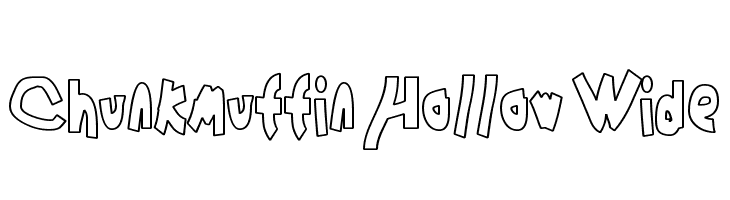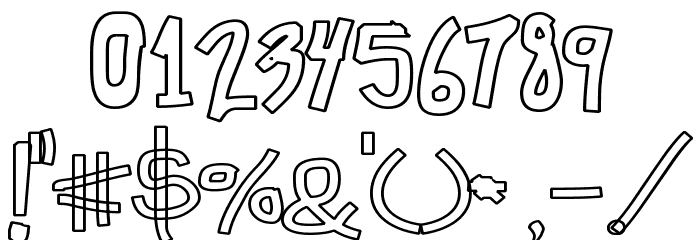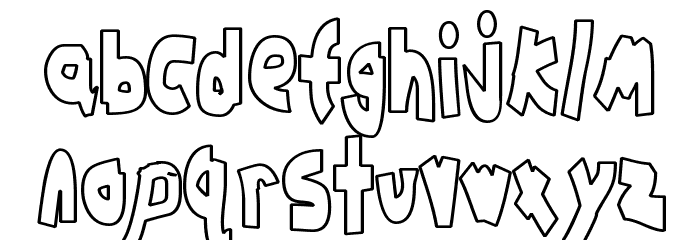
Chunkmuffin Hollow Wide Font
Chunkmuffin Hollow Wide Description
This font features a playful and dynamic style with hollow, wide characters that give it a unique and eye-catching appearance. The letters are bold and slightly irregular, adding a sense of movement and energy. The uppercase and lowercase letters maintain a consistent style, with exaggerated curves and angles that create a whimsical feel. Numbers and special characters are designed with the same playful aesthetic, ensuring a cohesive look across all text elements. The font's hollow design allows for creative use of color and background, making it versatile for various design projects.
A playful, hollow, and wide font with dynamic, irregular characters from Uncategorized fonts.
- Proposed Projects: Ideal for children's books, playful branding, creative posters, and eye-catching headlines.
- Width: Expanded
- Overall Style: Playful, Whimsical